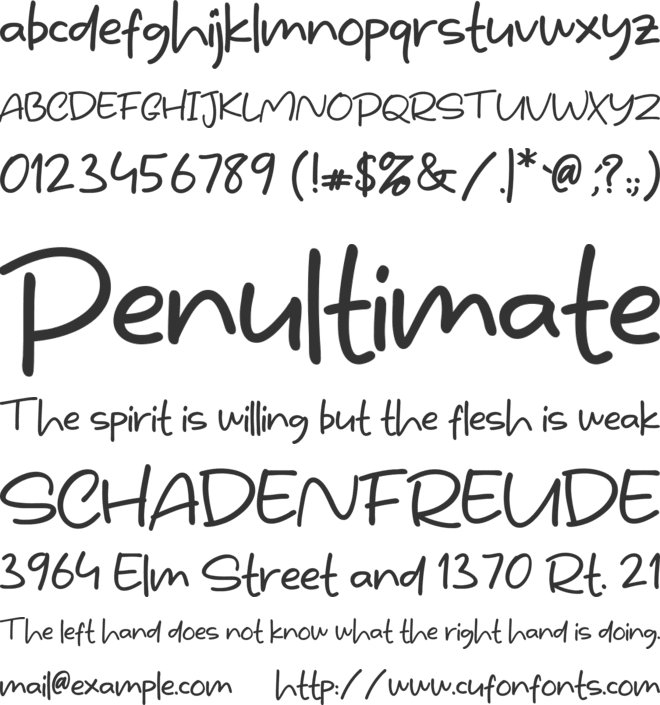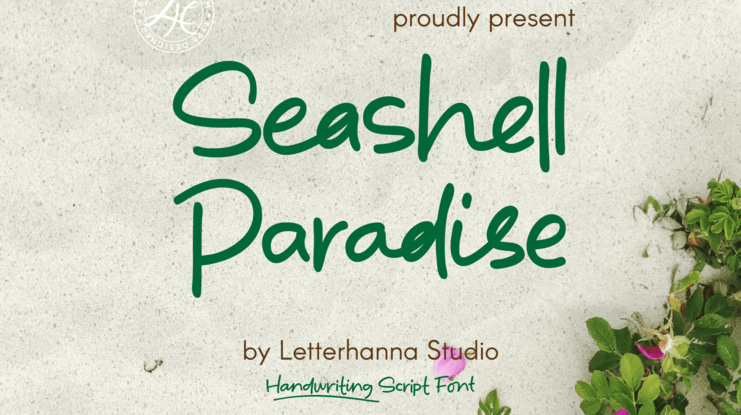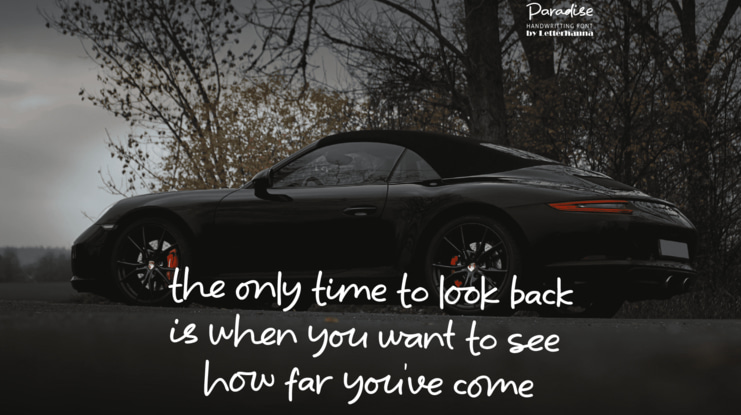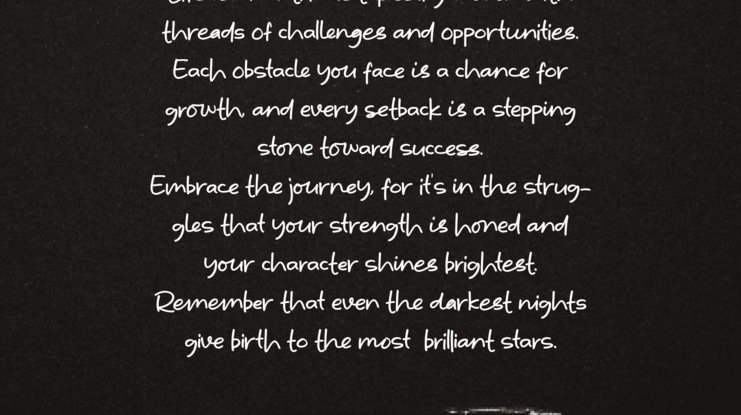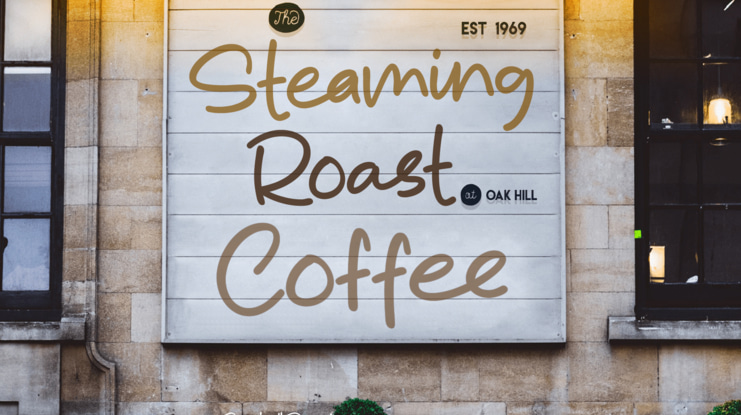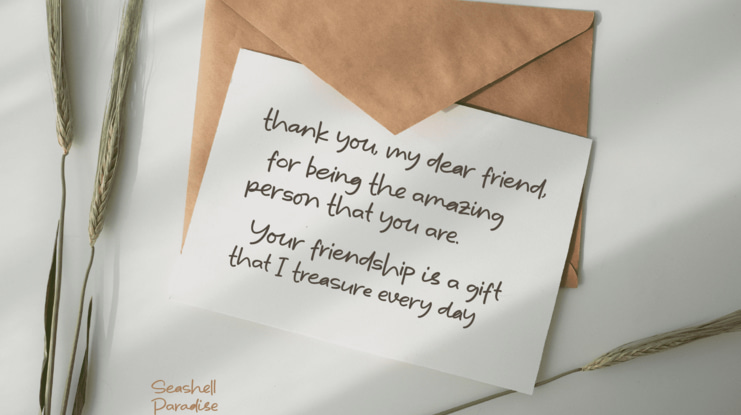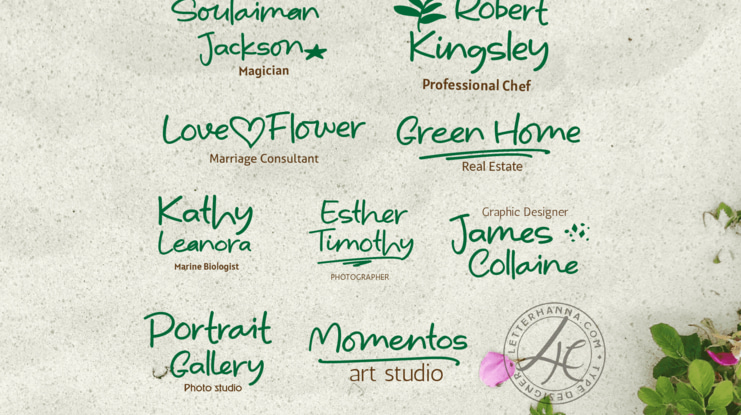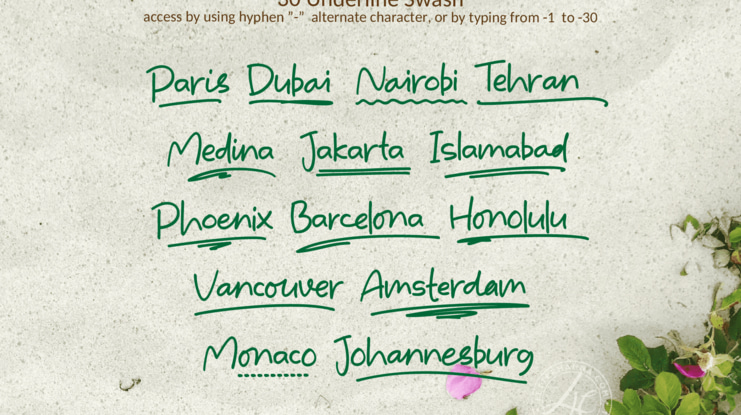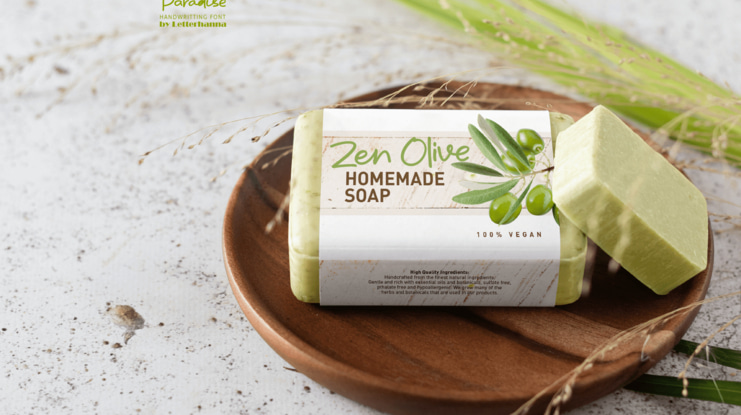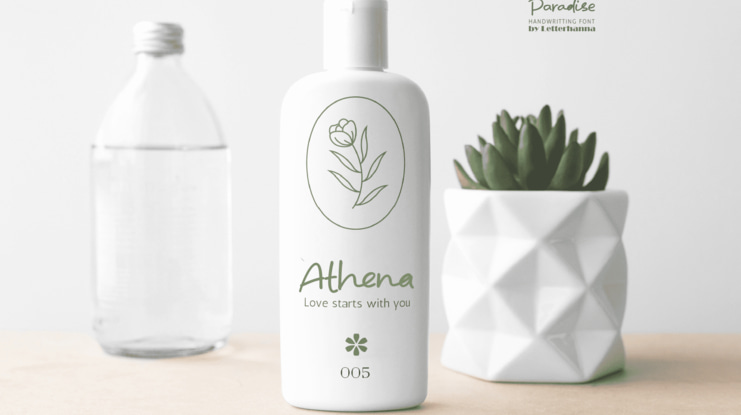
Seashell Paradise free Font
Introducing "Seashell Paradise," a delightful new handwritten font. This font captures the essence of tranquility and elegance with its flowing lines and graceful curves. "Seashell Paradise" is a versatile typeface that can be used for a wide range of design applications, from invitations and greeting cards to branding and product packaging. Its clean, modern look makes it a perfect choice for projects that require a contemporary and sophisticated feel.